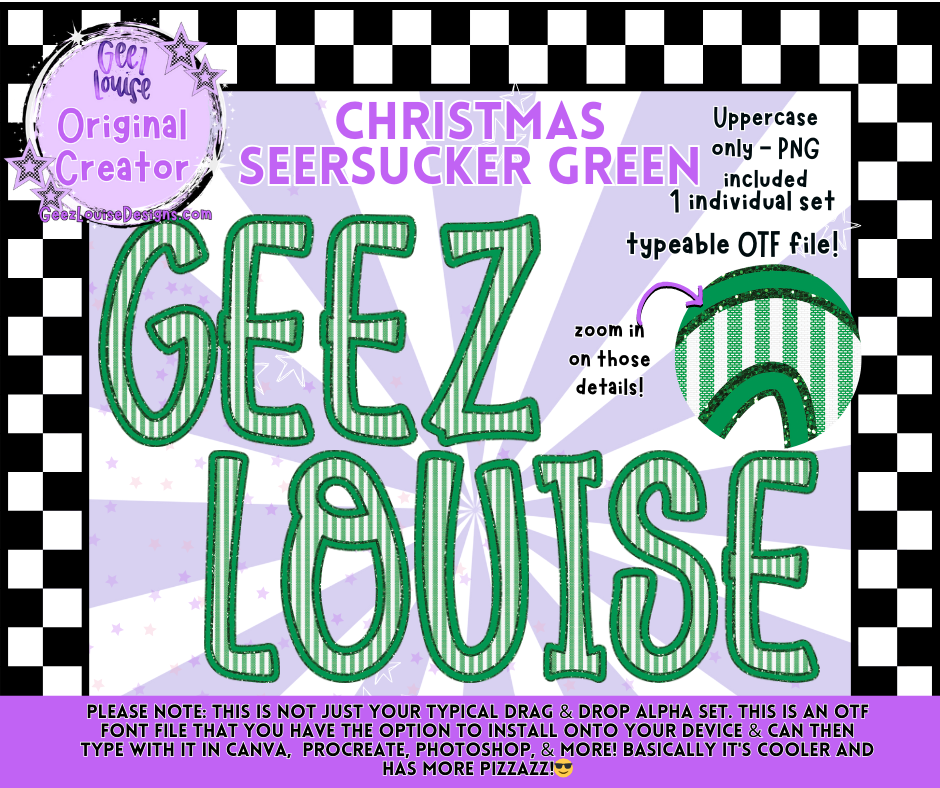
Christmas Seersucker Green – Typeable OTF Font + PNG Alpha Set
Bring festive flair to your holiday designs with the Christmas Seersucker Green Alpha + OTF Font! 🎄✨
The design features a festive seersucker stripe in green and white with a stitched-edge look, perfect for Christmas projects, holiday merch, or digital creations that need a touch of cozy cheer.